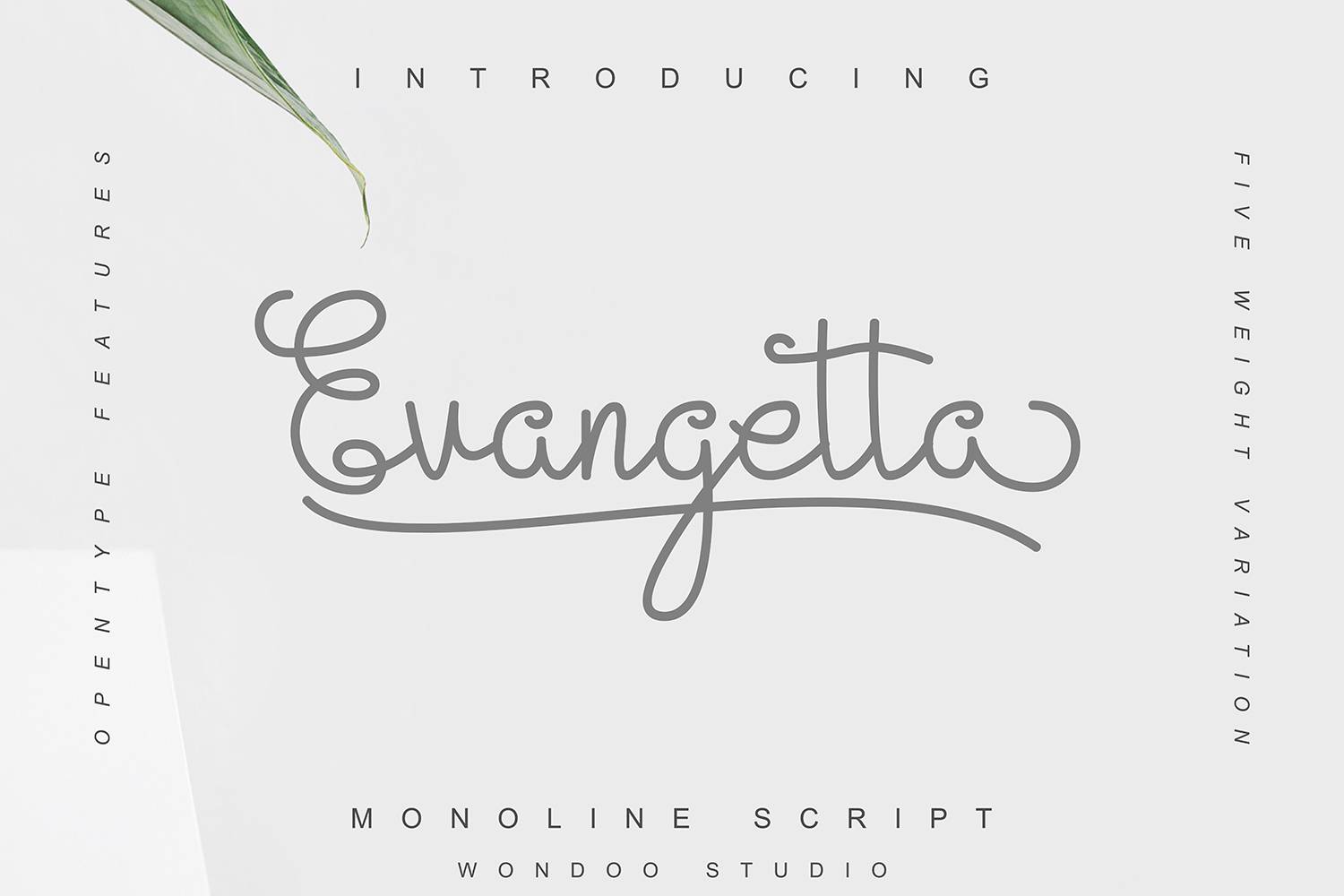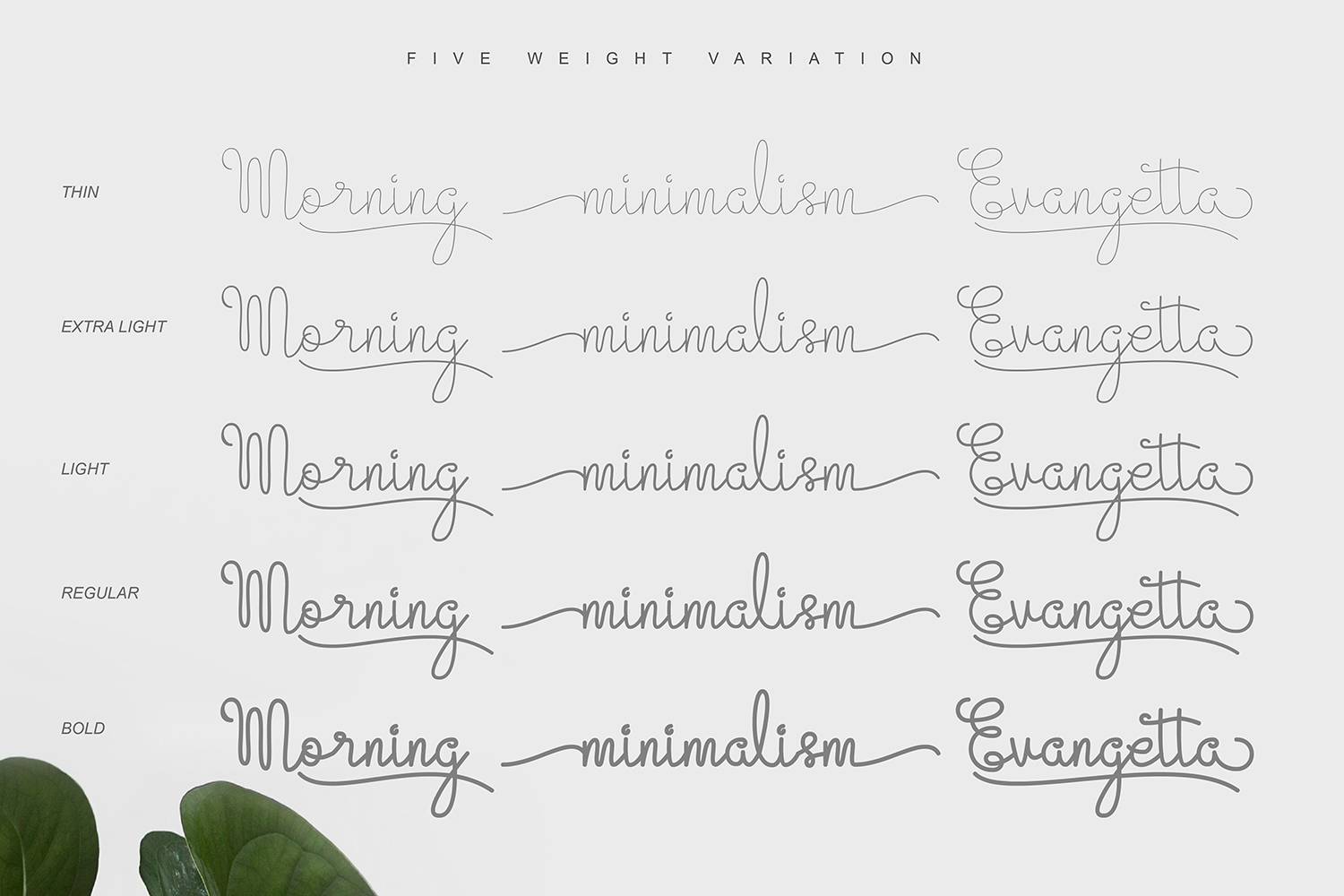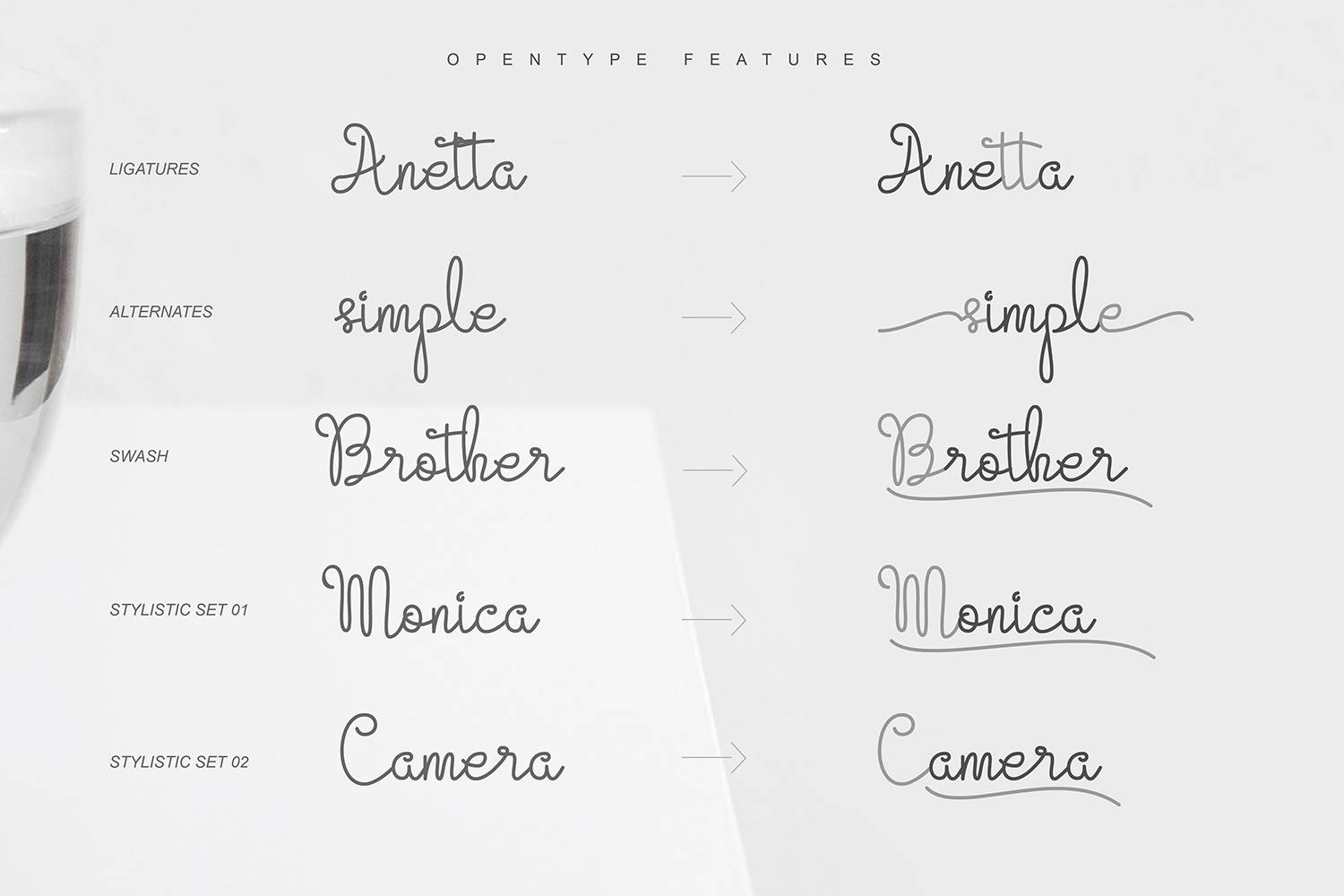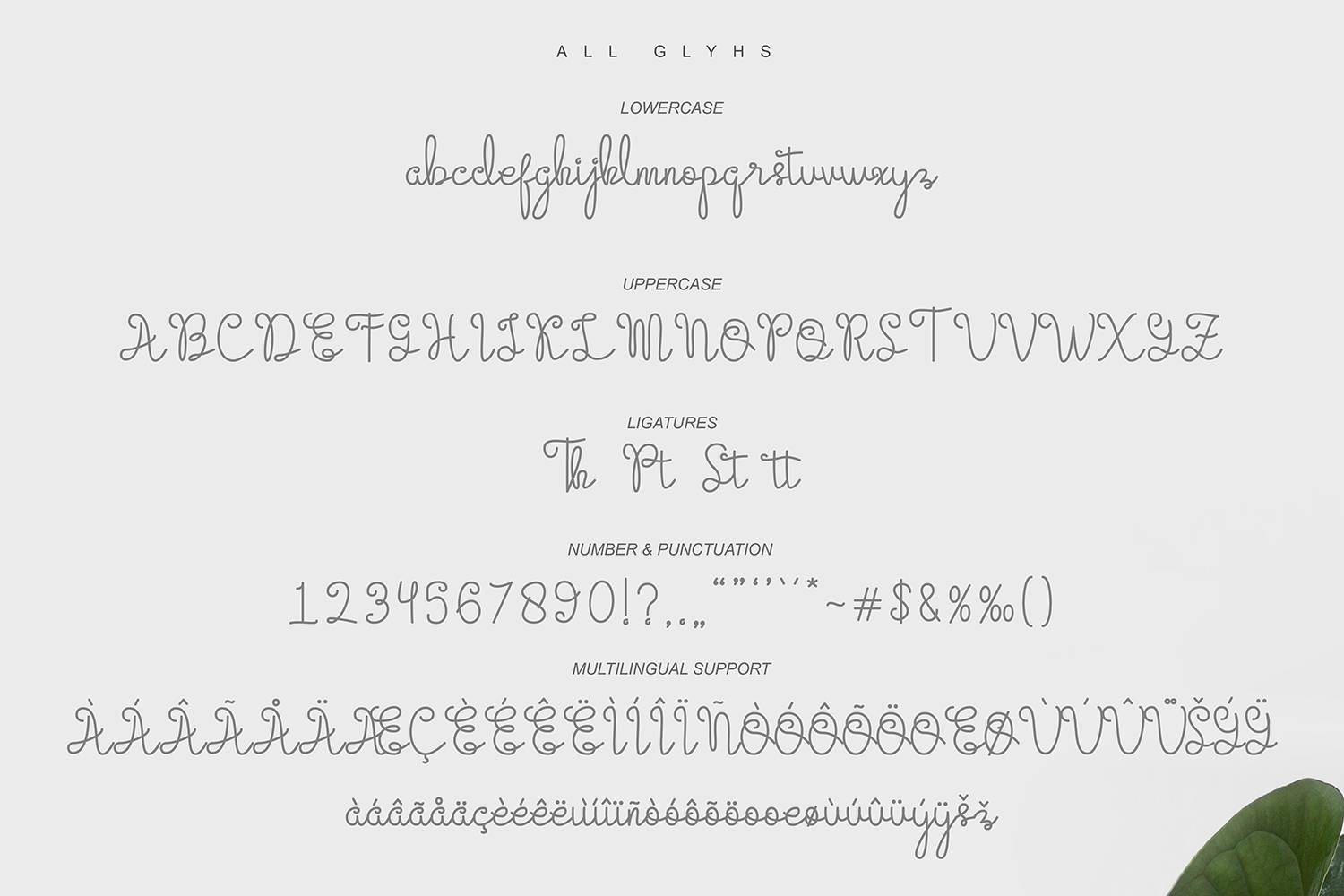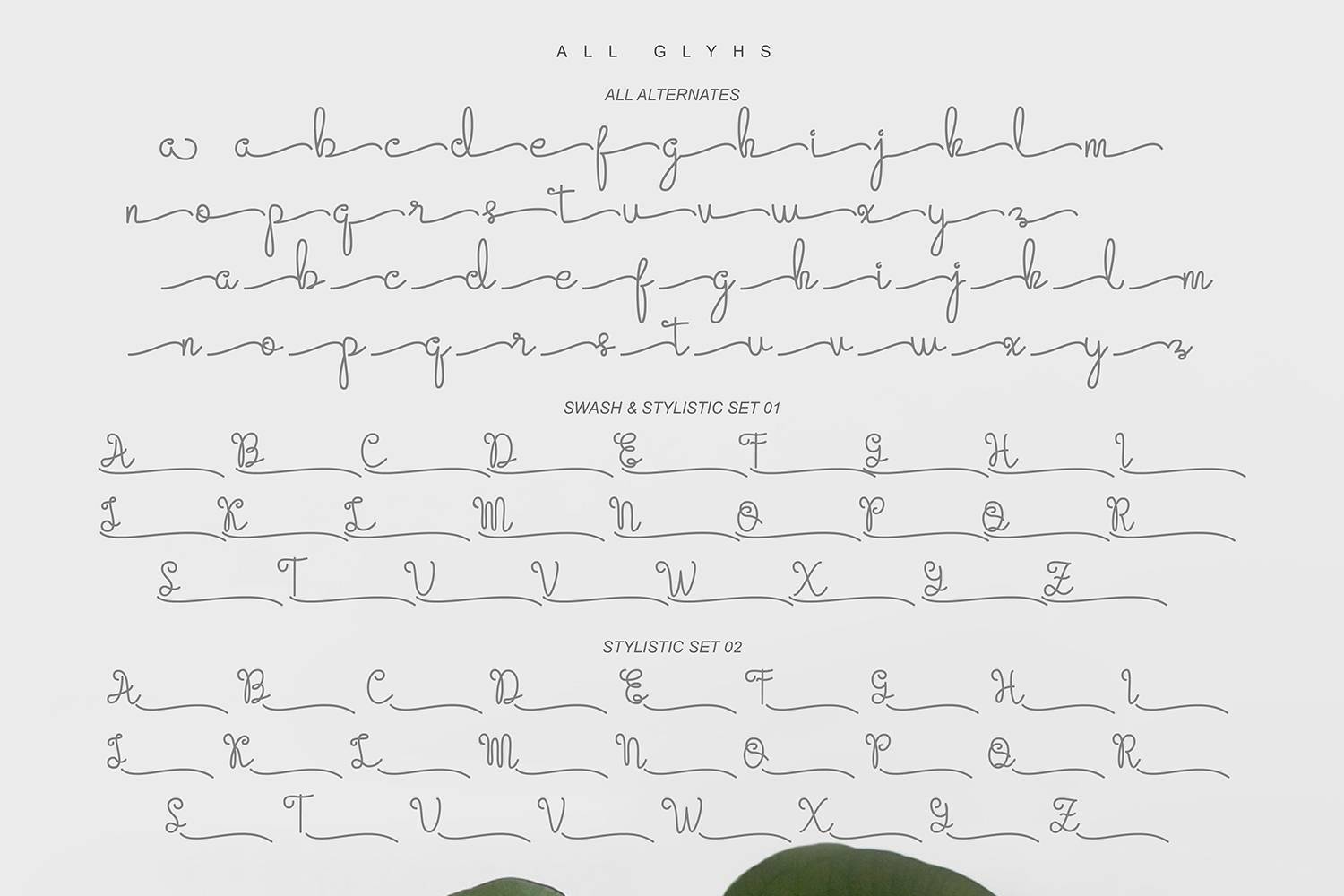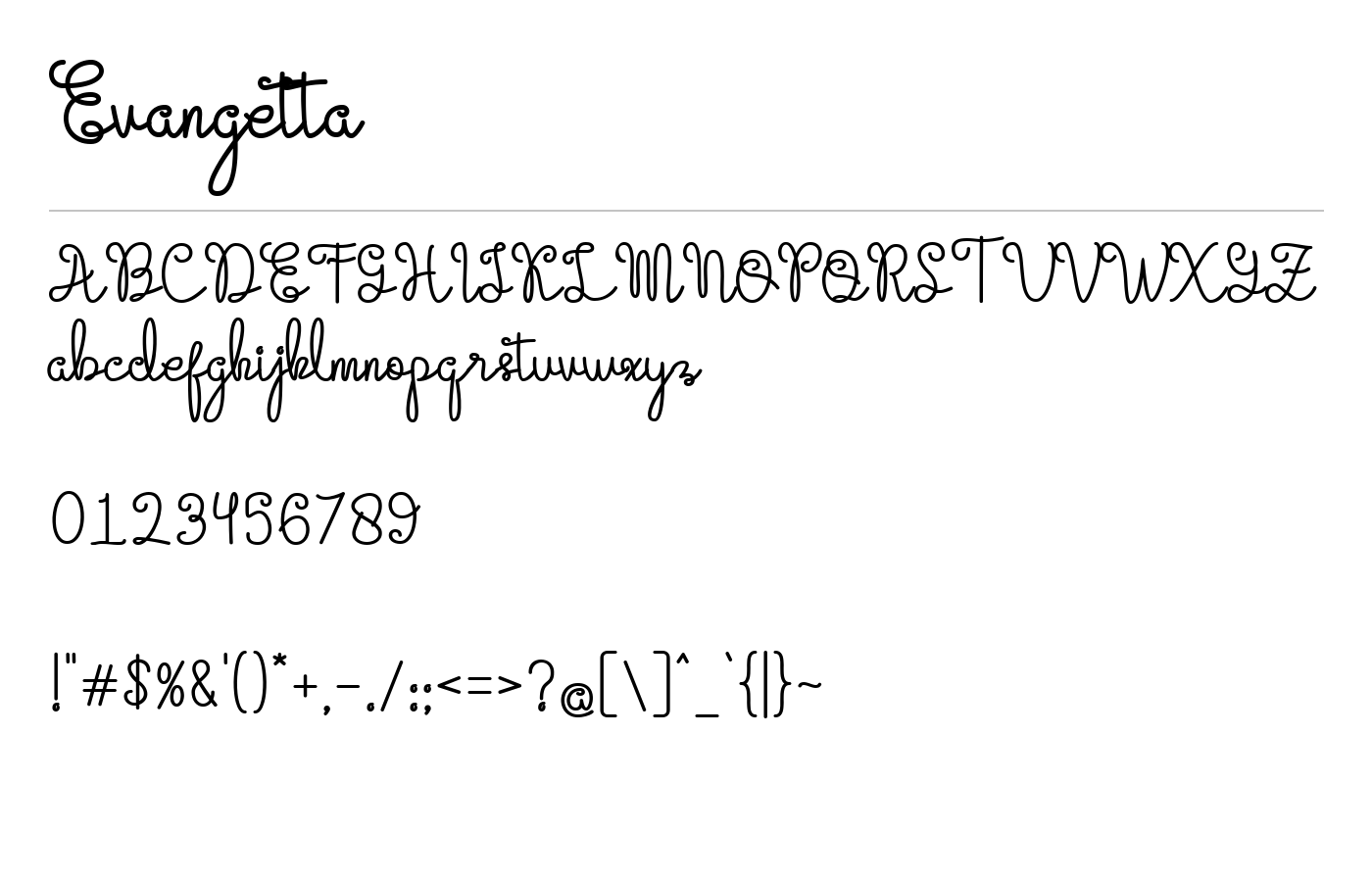
Evangetta is a playful, handwritten script font with a light weight and a delicate, airy feel. Its tall x-height and looping, whimsical letterforms create a friendly, informal style that works well for creative projects, invitations, and branding with a personal touch. This font’s unique charm makes it ideal for designs seeking warmth and approachability rather than strict formality.
Evangetta Font
About Evangetta Font
| Font family | Evangetta Font |
| Release date | 2019-05-01 |
| Designer | Herya Wildan |
| Trademark | Wondoo Studio Co.™ |